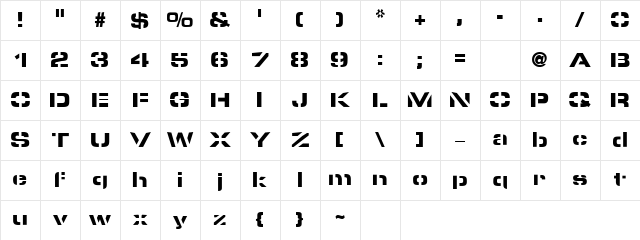
pyrostyle Regular Free Font
pyrostyle Regular
Design Context for pyrostyle
pyrostyle is a composed and adaptable typeface that performs quietly and consistently across a wide range of design contexts.
Pro Tip: Use pyrostyle in both headline and body roles to test its range before committing to a single application.